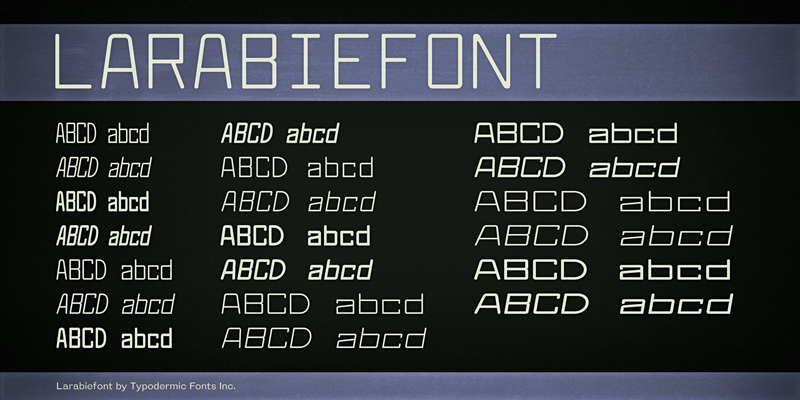
Larabiefont was inspired by an Olympia Senatorial No. 71 manual typewriter. This monospaced font features even stem widths and well defined shapes with rounded corners. This font includes a license that allows free commercial use: sometimes referred to as a desktop license. This allows you to install the font on a computer and use it to create posters, web graphics, game graphics, t-shirts, videos, signs, logos and more. Read the license agreement for details. If you'd like to embed this font in an app, ebook, on the web or anything that's not covered by the desktop license agreement, visit the link below. You'll find distributors who offer different types of licenses or you can contact me for help. http://typodermicfonts.com/larabiefont/ This free font is part of a larger font family. Check out the rest of the family through the link above. |